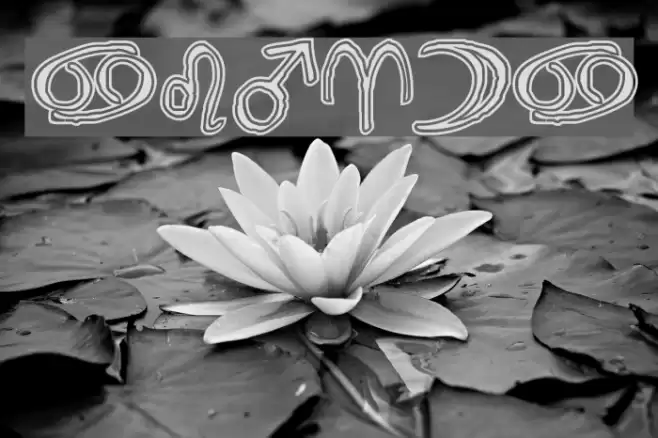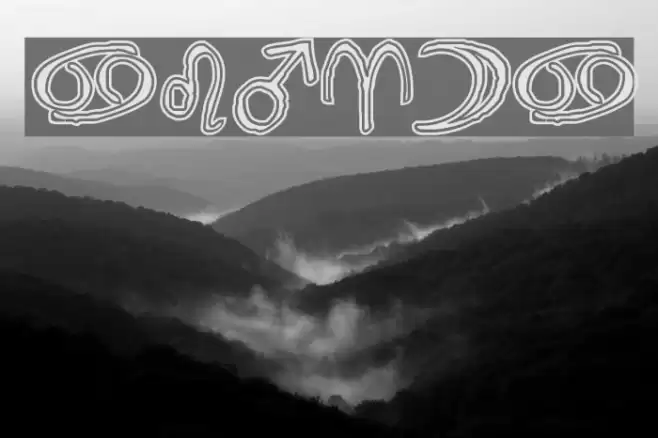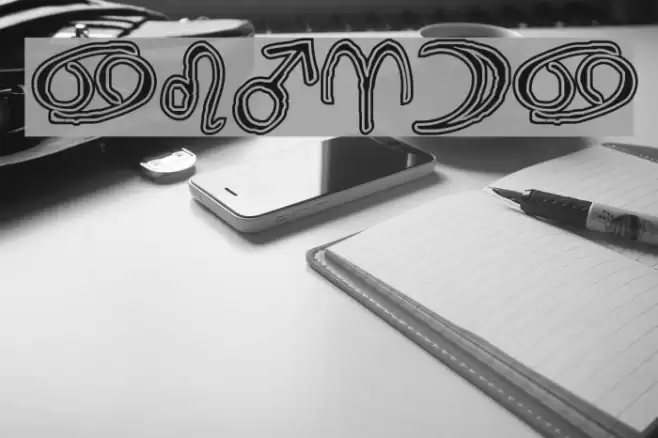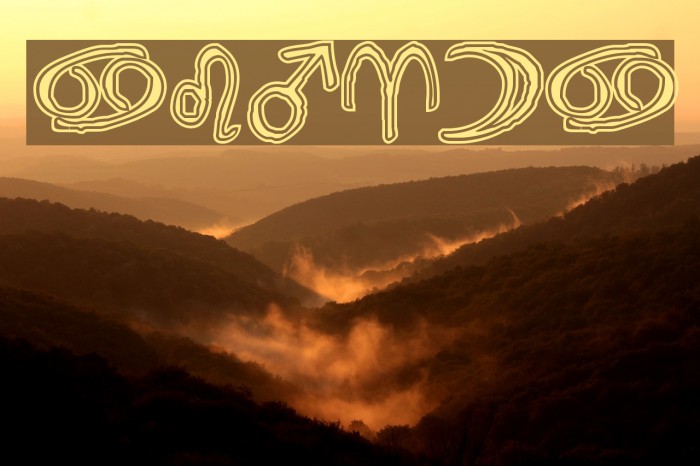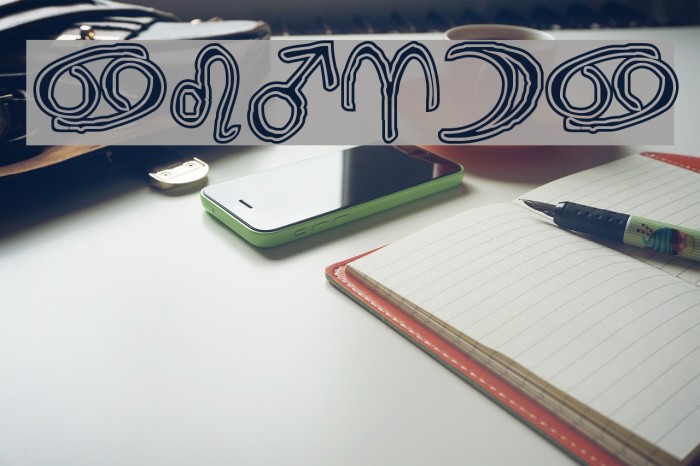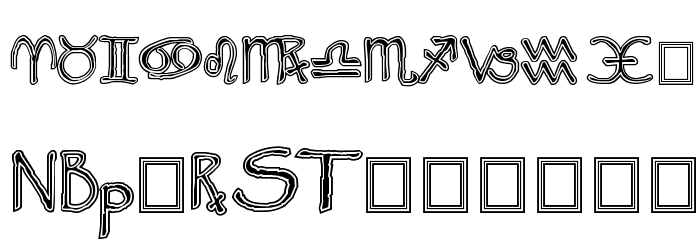
Widget ExtraBold Font
Widget ExtraBold Description
This font features a highly decorative and abstract style, with characters that resemble ancient symbols or hieroglyphs. The design is bold and intricate, with each letter and number crafted to appear unique and artistic. The characters have a hand-drawn quality, with varying line thicknesses and playful, unconventional shapes. This font is not suitable for traditional text but serves as an artistic expression, ideal for creative projects that require a distinct and eye-catching aesthetic.
A decorative, abstract font with a bold, artistic style from Dingbats fonts.
- Proposed Projects: Ideal for artistic projects, logos, posters, and any design requiring a unique and eye-catching font.
- Use Case: Logos, Posters, Artistic Projects